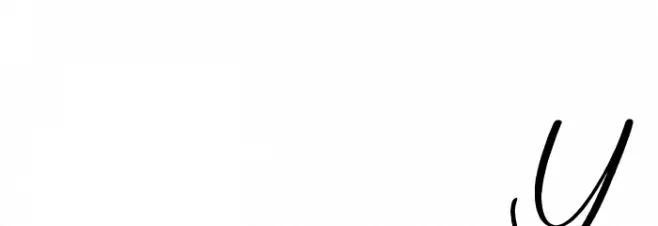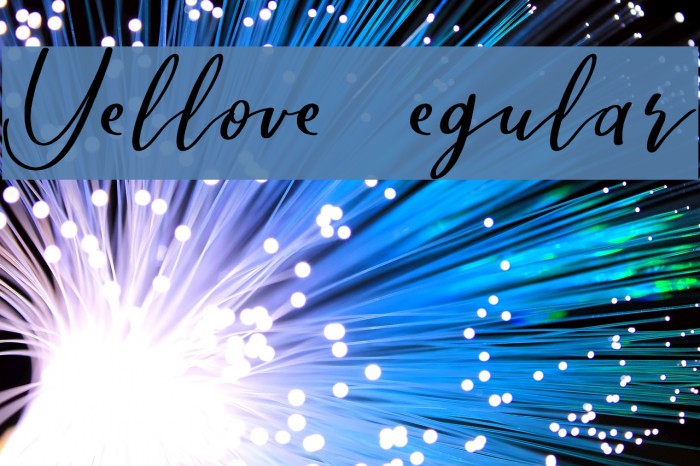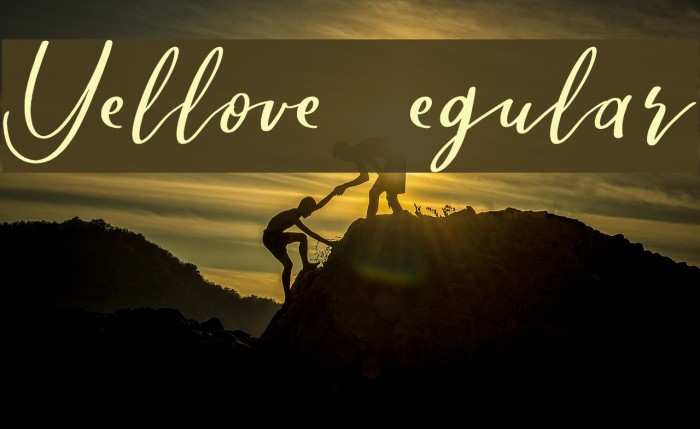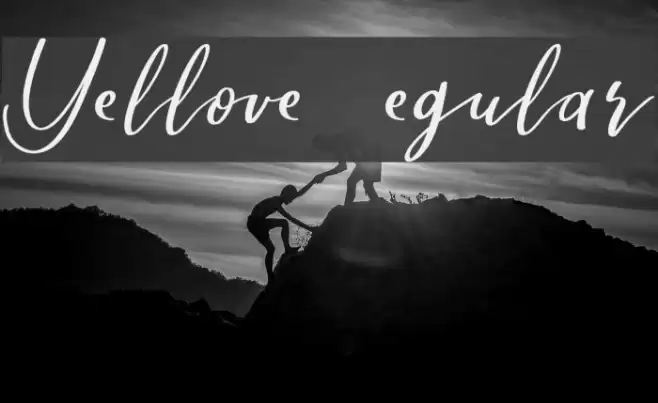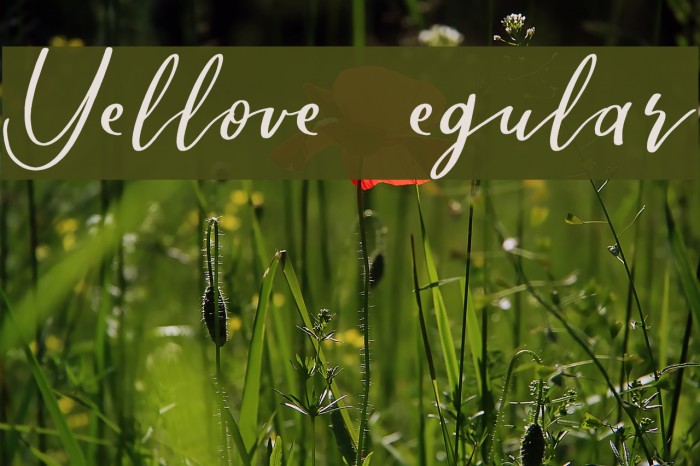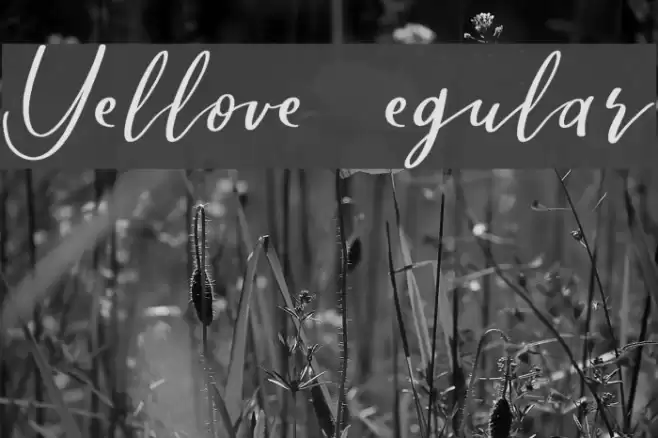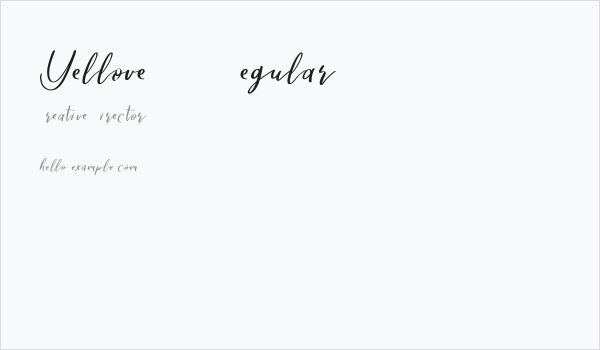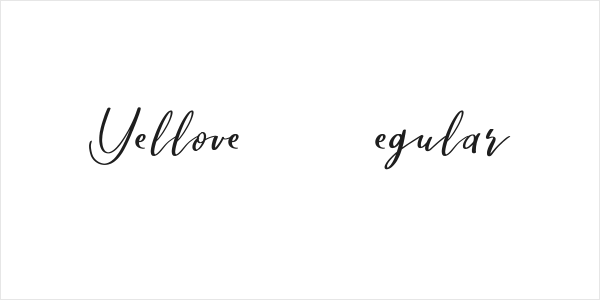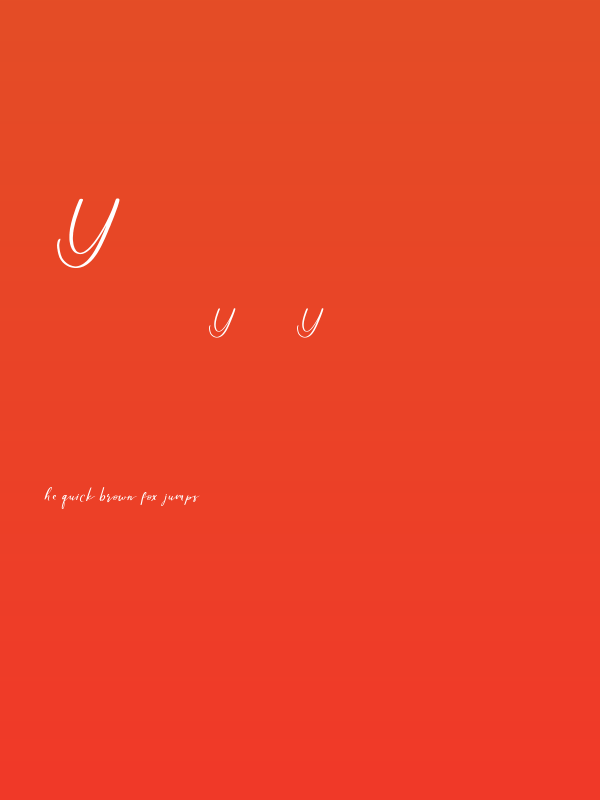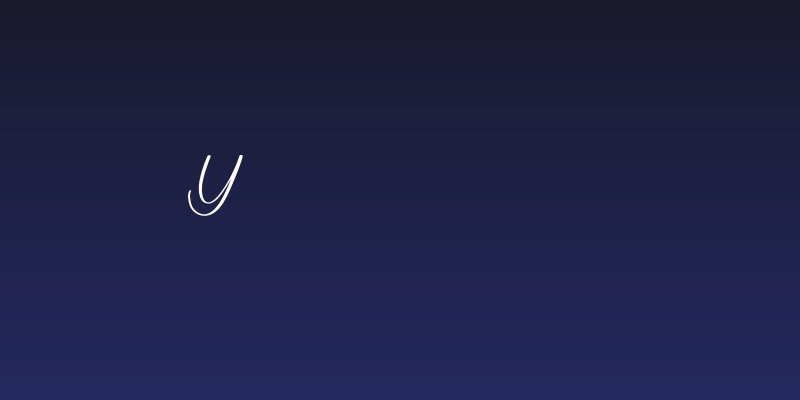
Yellove DEMO Regular Font
Yellove DEMO Regular Description
This font exudes a sophisticated and elegant style, characterized by its flowing, cursive script. Each letter is crafted with a sense of fluidity and grace, making it ideal for projects that require a touch of class and refinement. The strokes are moderately thick, providing a balanced contrast that enhances readability while maintaining an artistic flair. The font's design is reminiscent of traditional calligraphy, yet it incorporates modern elements that make it versatile for contemporary use. Its unique charm lies in the subtle variations in stroke width, which add a dynamic and lively feel to the text. Perfect for invitations, branding, and any design that seeks to convey elegance and sophistication.
| Overall Style | Elegant, Modern |
| Use Case | Invitations, Branding, Stationery |
| Proposed Projects | Ideal for wedding invitations, elegant branding, and sophisticated stationery. |